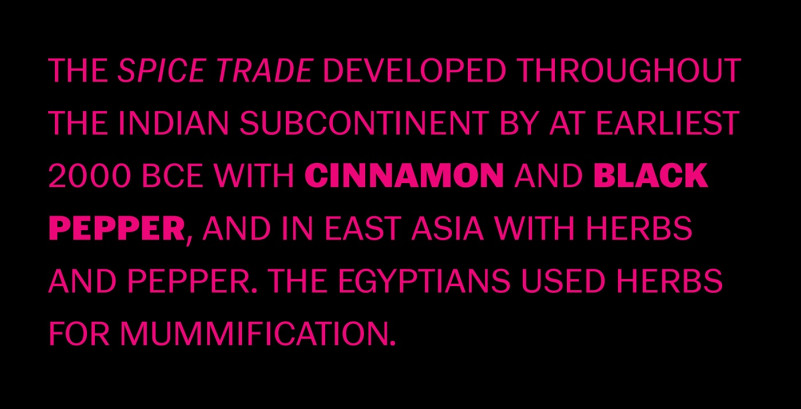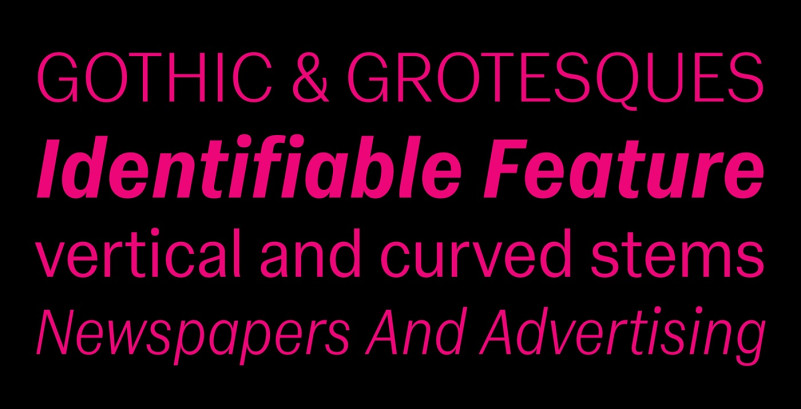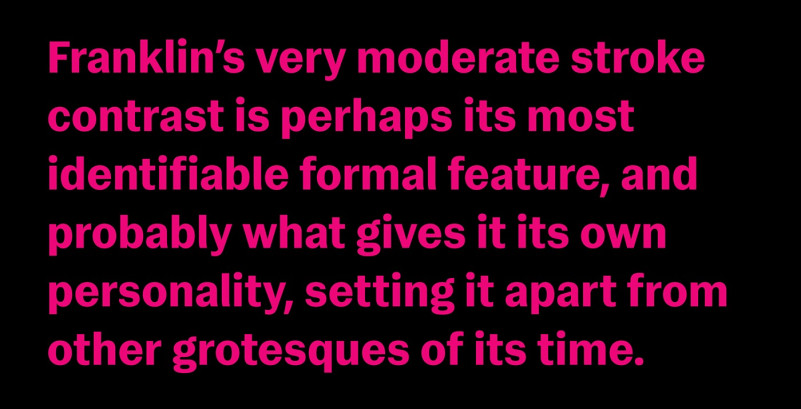
Gal Gothic Font Family
Gal Gothic Sans Serif Font is a humanist variable sans serif font whose main inspiration is the classic Franklin Gothic by Morris Fuller Benton (1904). Franklin’s very moderate stroke contrast is perhaps its most identifiable formal feature, and probably what gives it its own personality, setting it apart from other grotesques of its time. This contrast, however, is much more noticeable in the heavier weights, while the lighter ones have a certain monolinearity. This is probably due to the fact that Benton only designed the heaviest weight, while the rest were added much later, by the hands of Victor Caruso for ITC (1980). Gal Gothic seeks to take this contrast also to the lighter weights, integrating them more consistently into the system. In addition, its horizontal endings and smooth connection between vertical and curved stems, bring this design closer to the neo-grotesque model and, together with the round dots, give it a very different tone of voice compared to the original reference